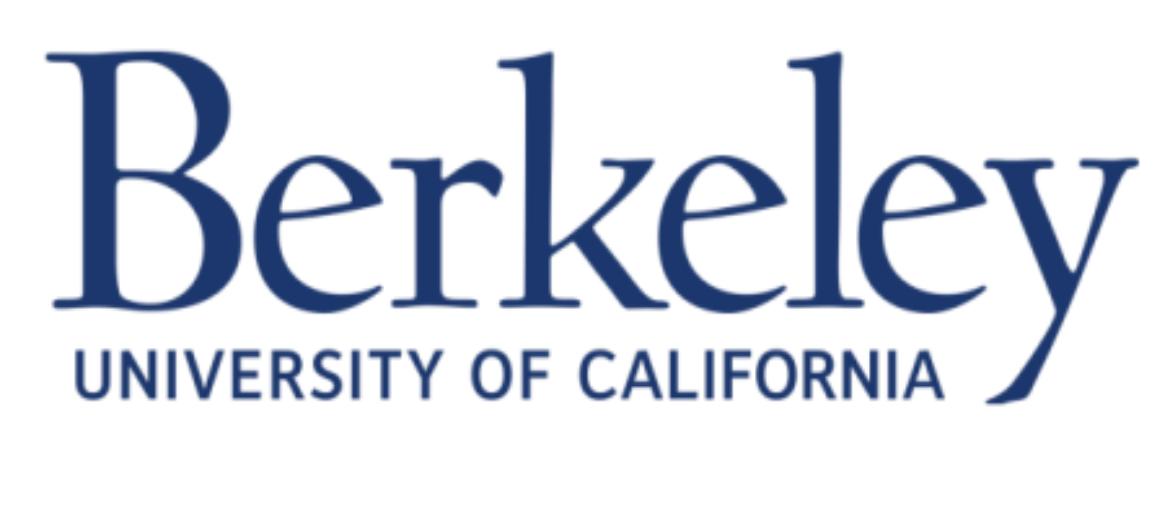
Berkeley Font
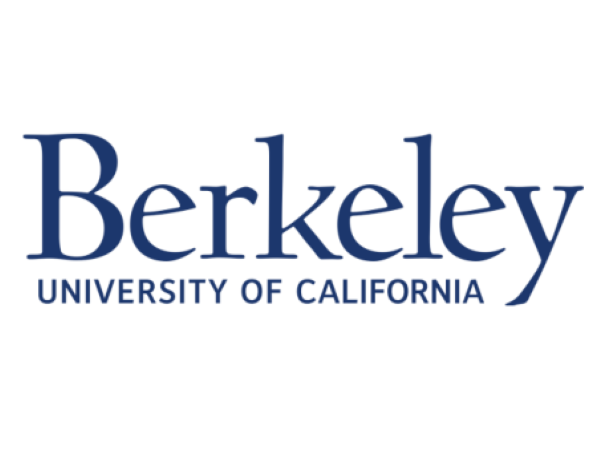
What is The Font Of Berkeley?
The Berkeley Font used by the University of California, Berkeley is most likely Benson OldStyle Opti-Medium. It is a classic old-style serif font with elegant curves, balanced proportions, and excellent readability, giving Berkeley’s wordmark and academic materials a scholarly, traditional, and prestigious look. The refined letterforms reflect the university’s long-standing reputation for academic excellence and intellectual heritage.
UC Berkeley has produced Nobel laureates, influential thinkers, and technology pioneers. Its visual identity, including its traditional serif typography, reflects a balance of historic academic prestige and modern intellectual leadership, reinforcing its position as a top global university.